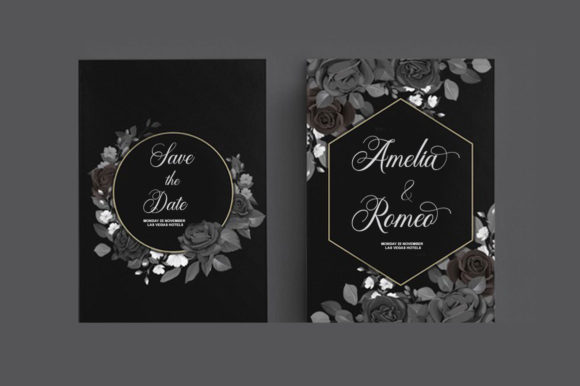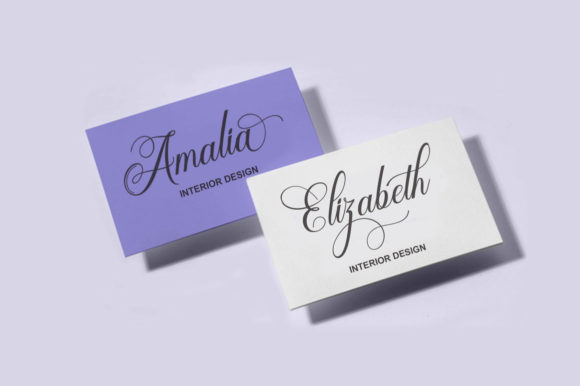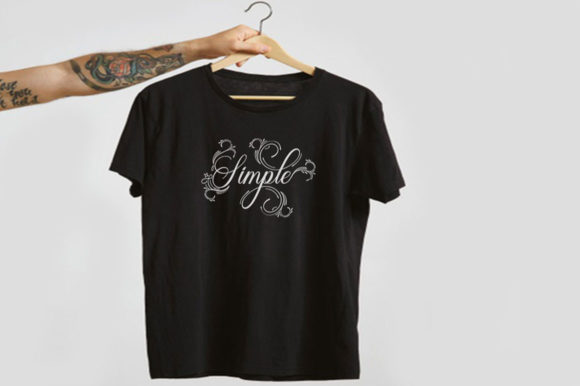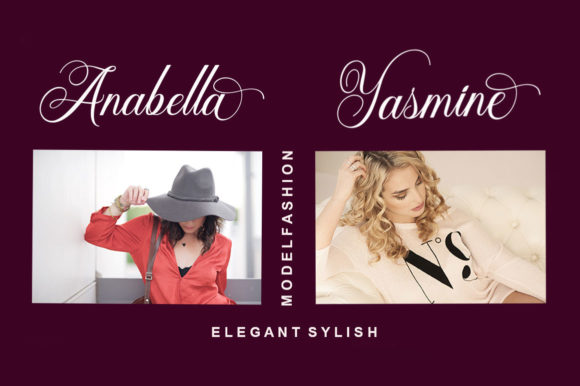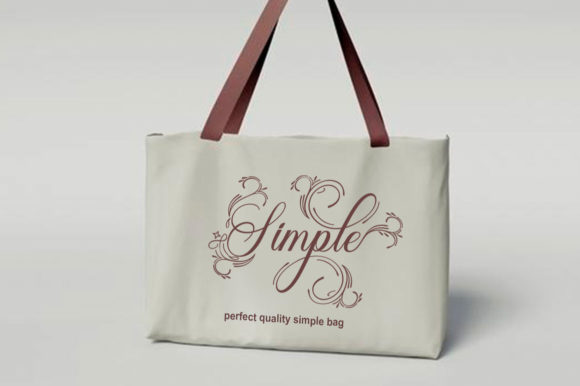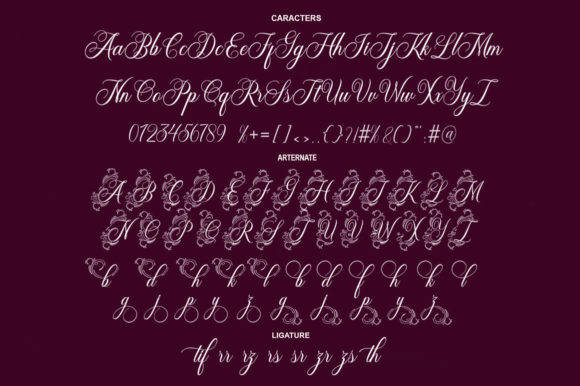
Introduction to Mayden Font
Mayden is a magical script font carefully created with a touch of elegance.
This font is PUA encoded which means you can access all of the glyphs and swashes with ease .
Key Features of Mayden Font
Why Choose Mayden Font?
Mayden Font offers exceptional quality and versatility, making it a valuable addition to your design toolkit. Whether you’re creating for personal projects or commercial use, Mayden Font delivers professional results.